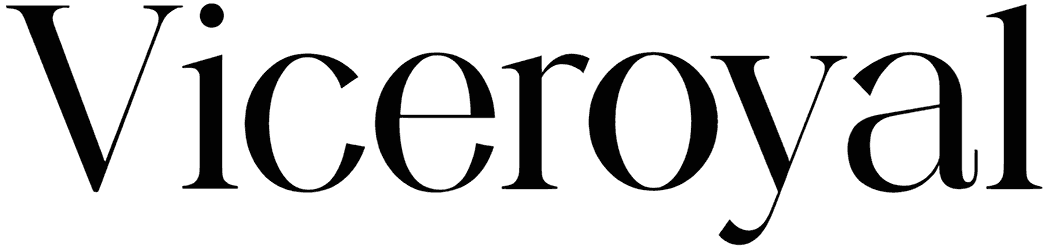
Viceroyal Font
Is this true? Is your text missing a fashionable style? Well, we can not let that happen to your words, so it’s a good thing we already have Viceroyal in line to introduce you. It has “royal” in its name, so you know exactly what you’re signing up for.
You’d better make room in your business cards for Viceroyal already because there’s no better way you can present a restaurant owner, author, photographer, or some other business like that.